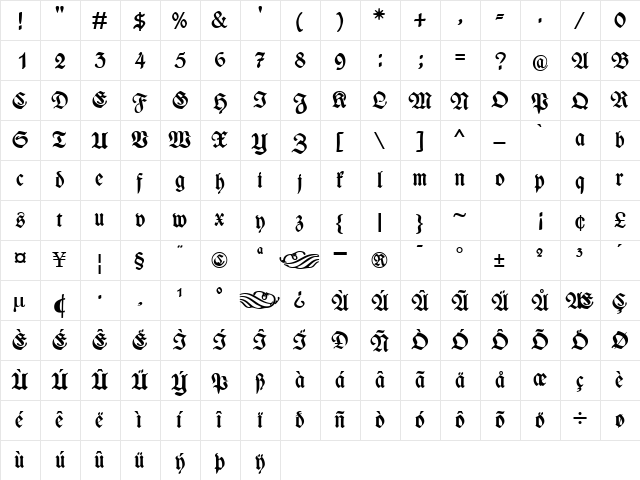
WieynckFrakturUNZ1L Bold
| Designer | Dieter Steffmann |
Design Context for WieynckFrakturUNZ1L Typeface
WieynckFrakturUNZ1L channels the dramatic heritage of Fraktur and Gothic scripts, bringing a sense of historical gravitas to any design. The heavy weight commands attention and anchors typographic hierarchies.
Well-suited to band logos, craft beer branding, tattoo lettering, and heritage-themed identities.
Font Pairing: Pair with a clean neutral sans-serif for body copy to let WieynckFrakturUNZ1L's character lead without overwhelming the composition.
Pro Tip: Use WieynckFrakturUNZ1L sparingly at large sizes. Even a single word set in blackletter can define the visual register of an entire design.